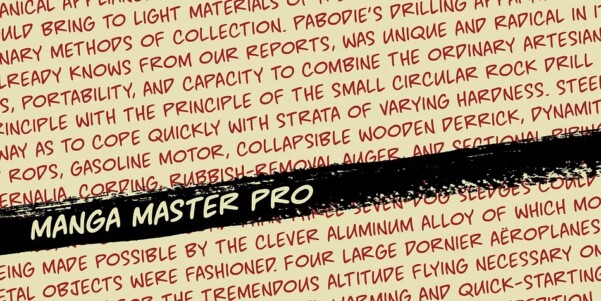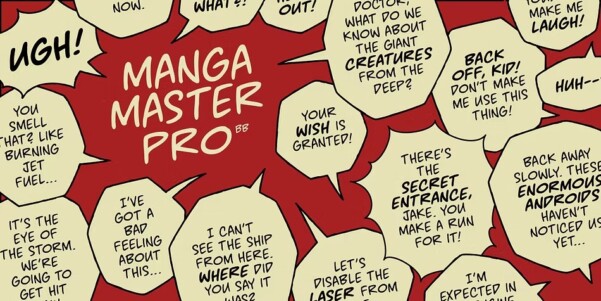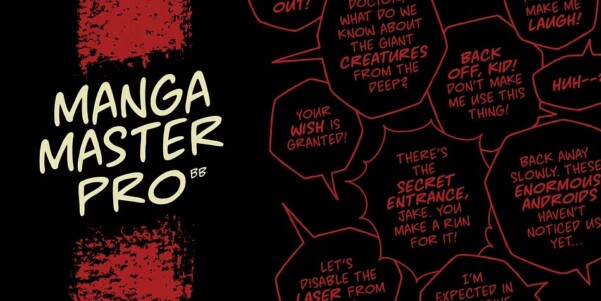
1. Manga Master Pro BB Font is a fantastic choice for any manga creator! Its clean lines and expressive style perfectly capture the essence of storytelling, enhancing every panel with dynamic flair. A must-try!